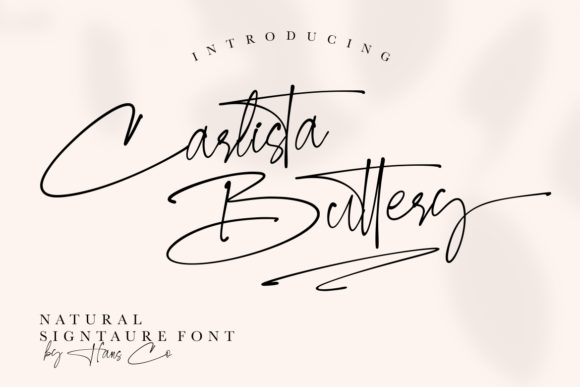
Introducing Carlista Buttery - An Enchanting Script Font That Embraces Your Signature Style
Embark on a journey of creativity with Carlista Buttery, a captivating handwritten font that will leave an indelible mark on your designs. This elegant script font exudes sophistication and charm, effortlessly enhancing your projects with a touch of individuality.
Carlista Buttery seamlessly blends the timeless beauty of handwritten strokes with a modern, contemporary flair. Its graceful curves and delicate flourishes evoke a sense of authenticity and artistry, making it the perfect choice for adding a personal touch to your designs.
Whether you're a seasoned designer or just starting out, Carlista Buttery is incredibly versatile and easy to use. Its intuitive design allows you to effortlessly create stunning logos, eye-catching invitations, heartfelt greeting cards, and captivating social media posts that are sure to leave a lasting impression.
With Carlista Buttery, you'll discover a world of possibilities to express your unique style. Its natural and stylish appearance makes it ideal for adding a touch of elegance to wedding invitations, creating enchanting branding materials, or crafting heartfelt letters to loved ones.
Unleash your creativity and explore the endless possibilities that await with Carlista Buttery. Its enchanting charm and versatility will captivate your audience, leaving them spellbound by the beauty of your designs. Download Carlista Buttery today and embark on a creative journey like never before!